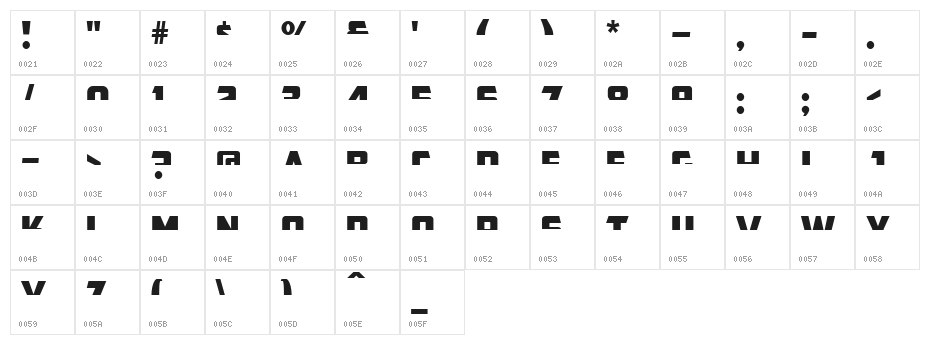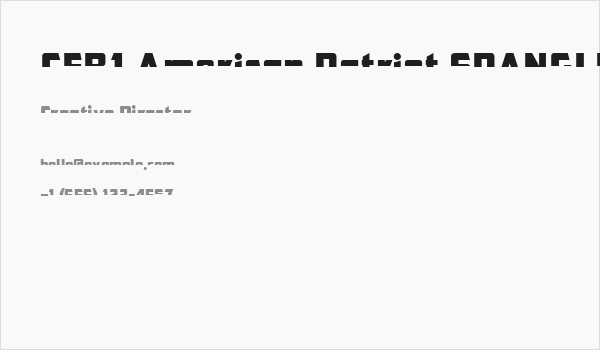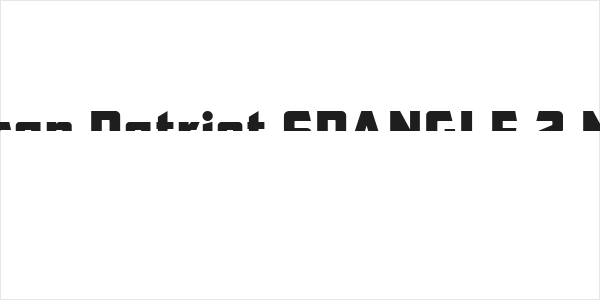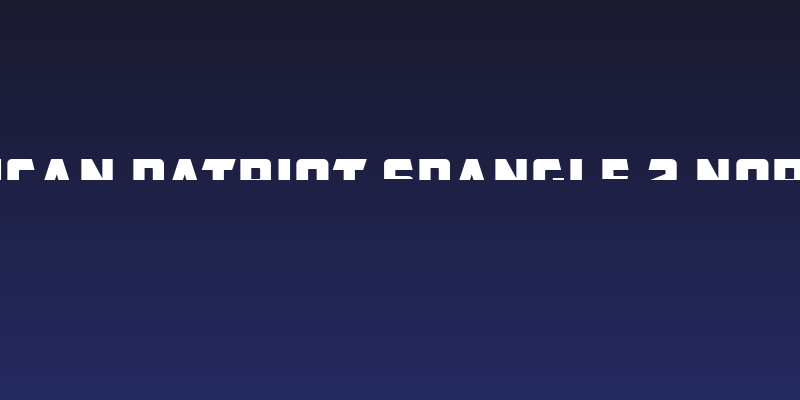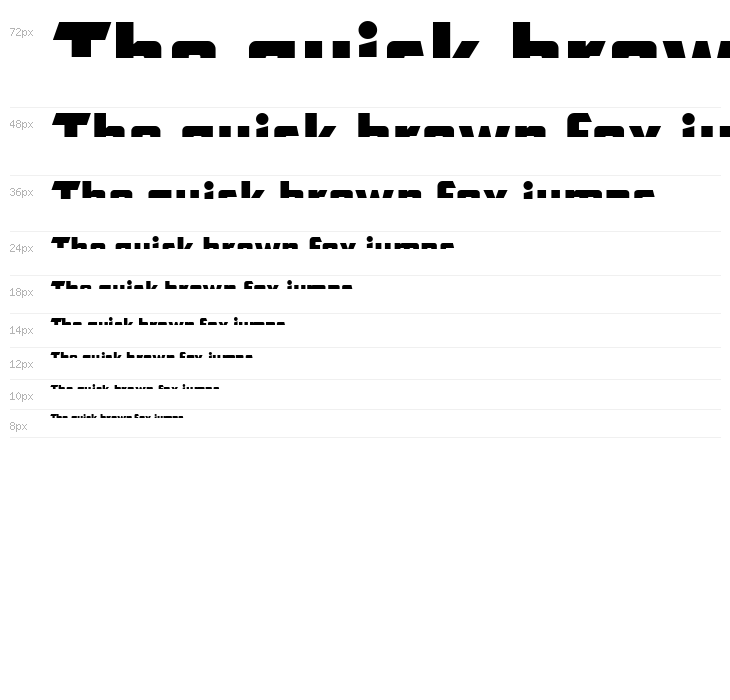
CFB1 American Patriot SPANGLE 2 Normal Italic Font
CFB1 American Patriot SPANGLE 2 Normal Italic Description
This font features a bold and robust design with a distinctly modern and geometric style. The characters are constructed with sharp angles and straight lines, giving it a strong and impactful appearance. The uppercase and lowercase letters maintain a consistent weight, contributing to a cohesive look. The numbers and special characters follow the same design principles, ensuring uniformity across all glyphs. The italic slant adds a dynamic touch, enhancing its contemporary feel. This font is ideal for projects that require a bold statement, such as branding, posters, or headlines.
Proposed ProjectsIdeal for branding, posters, headlines, and any project needing a strong visual impact.